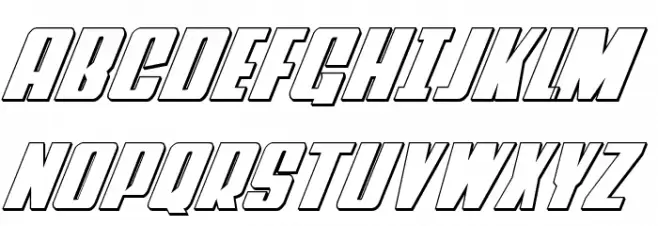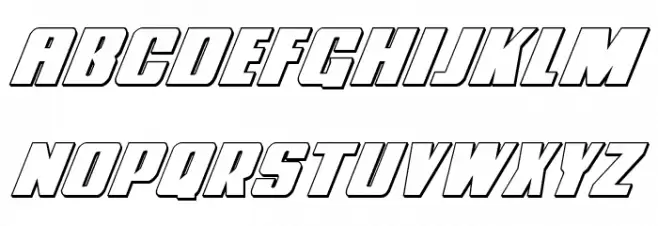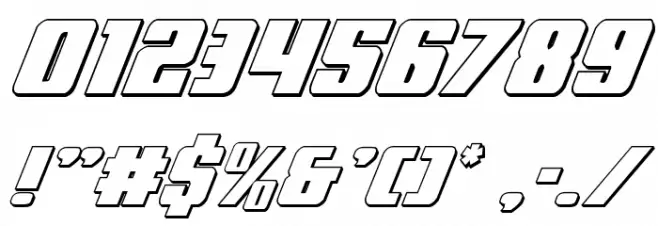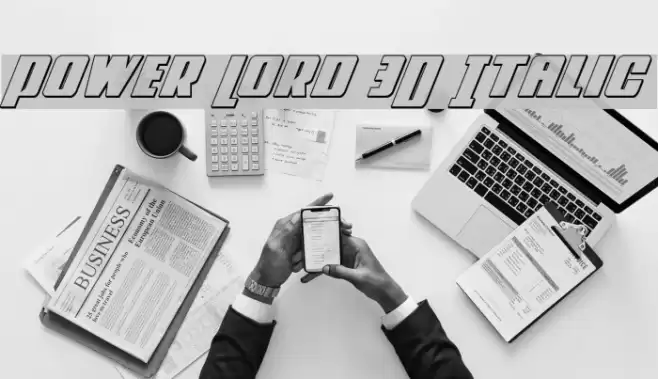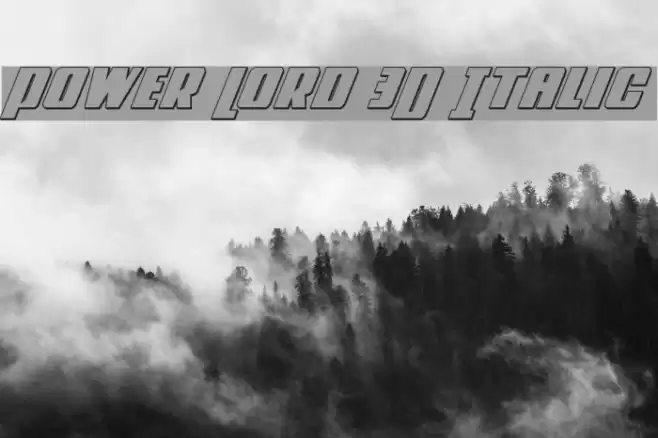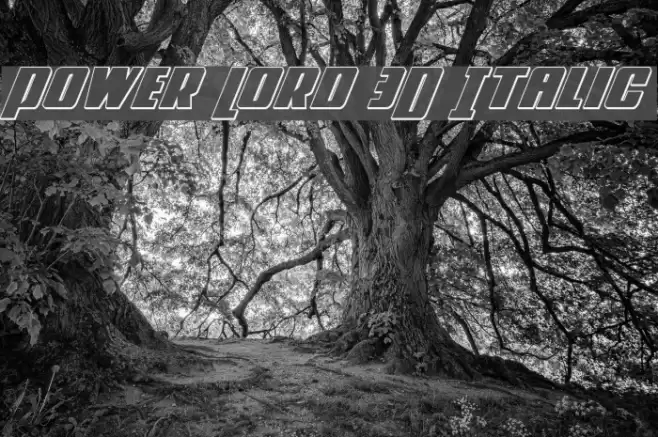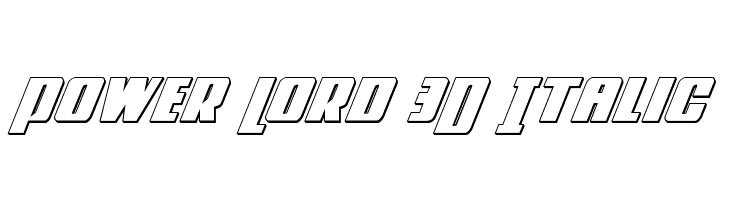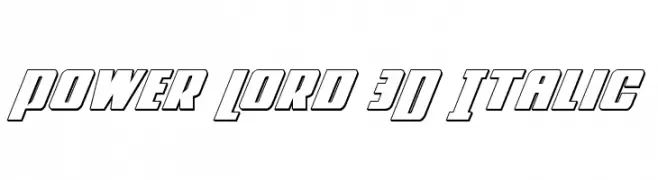
Power Lord 3D Italic
This font features a bold, three-dimensional design with an italic slant, creating a dynamic and impactful appearance. The characters are outlined, giving them a distinct, futuristic look. The uppercase letters are prominent and angular, while the lowercase letters maintain a consistent style. Numbers and special characters are designed to match the overall aesthetic, ensuring uniformity across all glyphs. The font's 3D effect is achieved through a clever use of shadowing, adding depth and a sense of movement. Its unique style makes it suitable for projects that require a modern and eye-catching typeface.
A bold, 3D italic font with an outlined, futuristic style.
- Proposed Projects: Ideal for video game titles, movie posters, tech branding, and any project needing a modern, dynamic typeface.